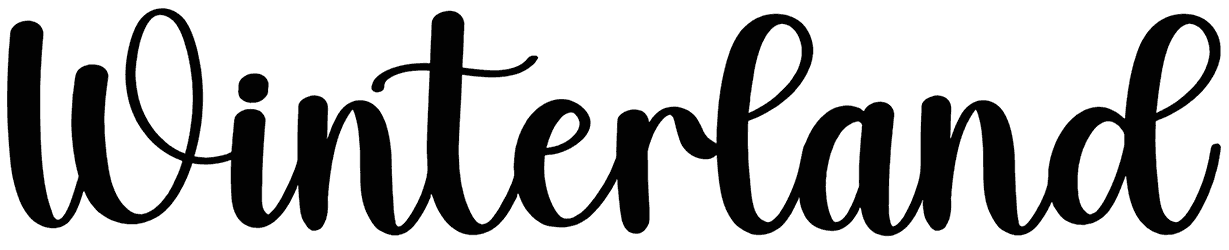
Winterland Font
The letters in the Winterland script font are made to look like they were written with a brush or pen in a flowing style.
It’s a terrific idea to use this wedding font on banners, birthday cards, wedding invitations, and anything else you need to make look modern and fashionable due to its vibrant and informal appearance. Download it immediately for free from RB’s huge font library and put it to good use in your next project.